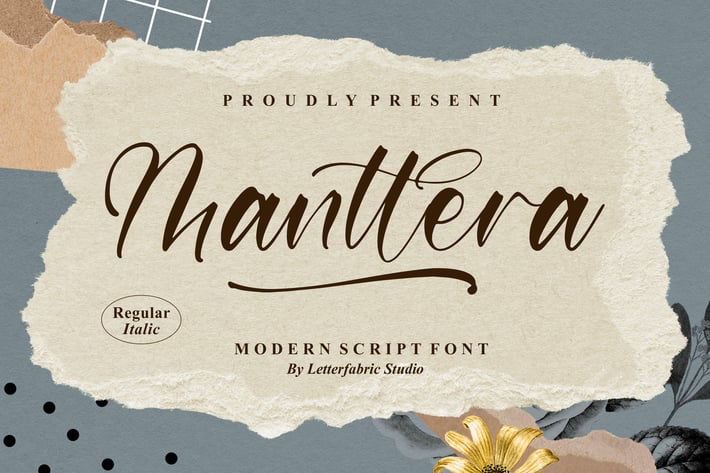
Manttera Modern Script Font
Manttera is a modern script font with an elegant handwritten flow, perfect for adding personality and sophistication to your digital and printed projects. Its smooth curves and stylish strokes make it ideal for branding, social media posts, invitations, and various creative works.
Elegant and modern script style
Smooth handwritten strokes
Branding, photography, invitations, stationery, packaging, quotes, social media, logos, posters, and creative display designs.